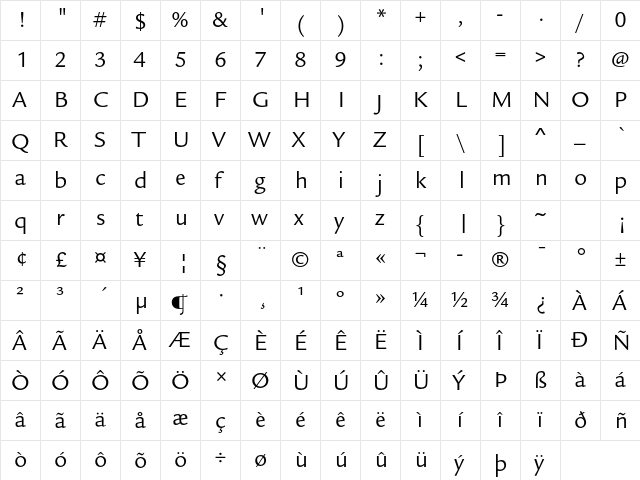
Legacy Sans ITC Std Book
| Designer | Ronald Arnholm |
Design Context for Legacy Sans ITC Std Typeface
Legacy Sans ITC Std takes a measured approach to typography — its balanced proportions and neutral character make it a reliable workhorse for both digital and print work.